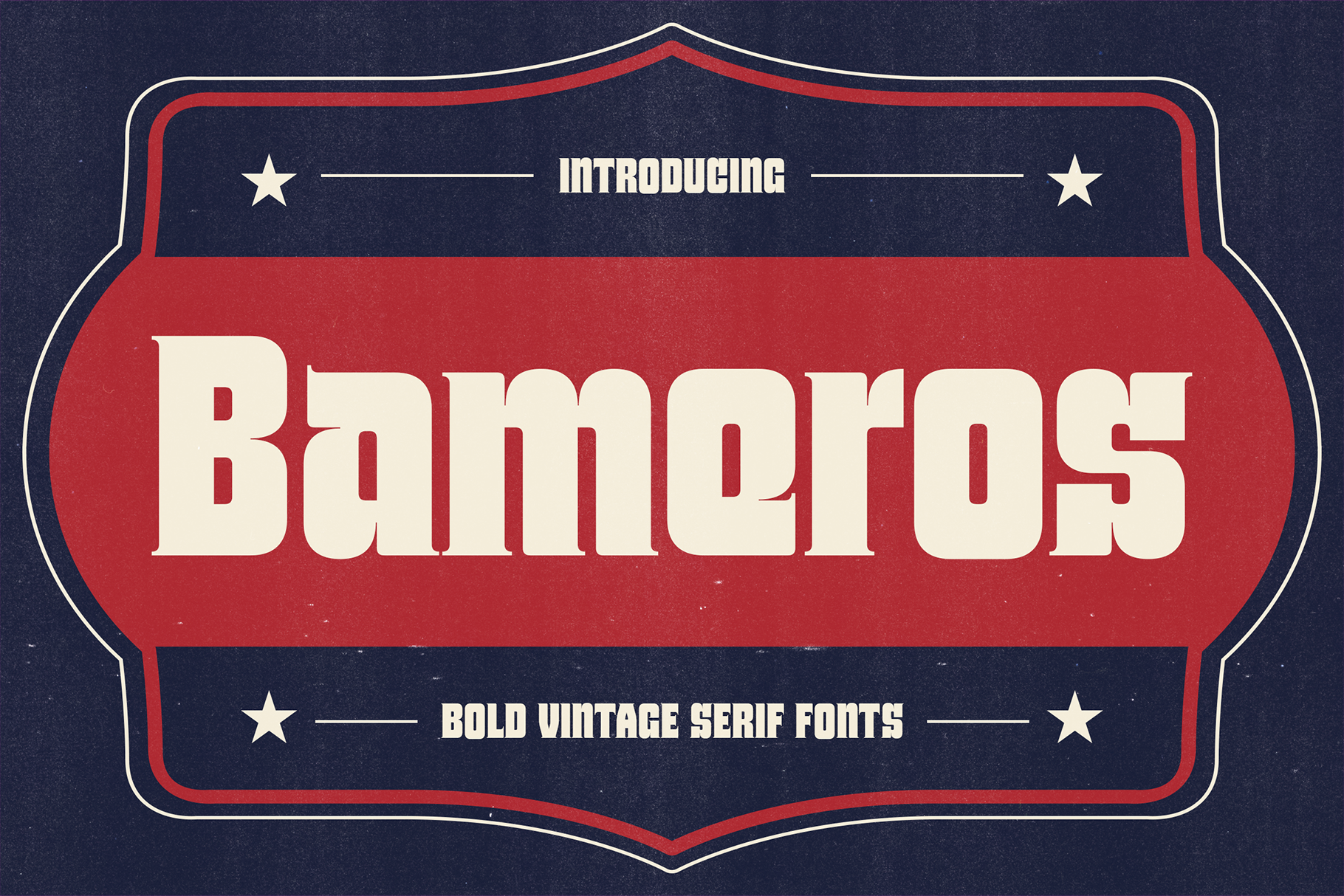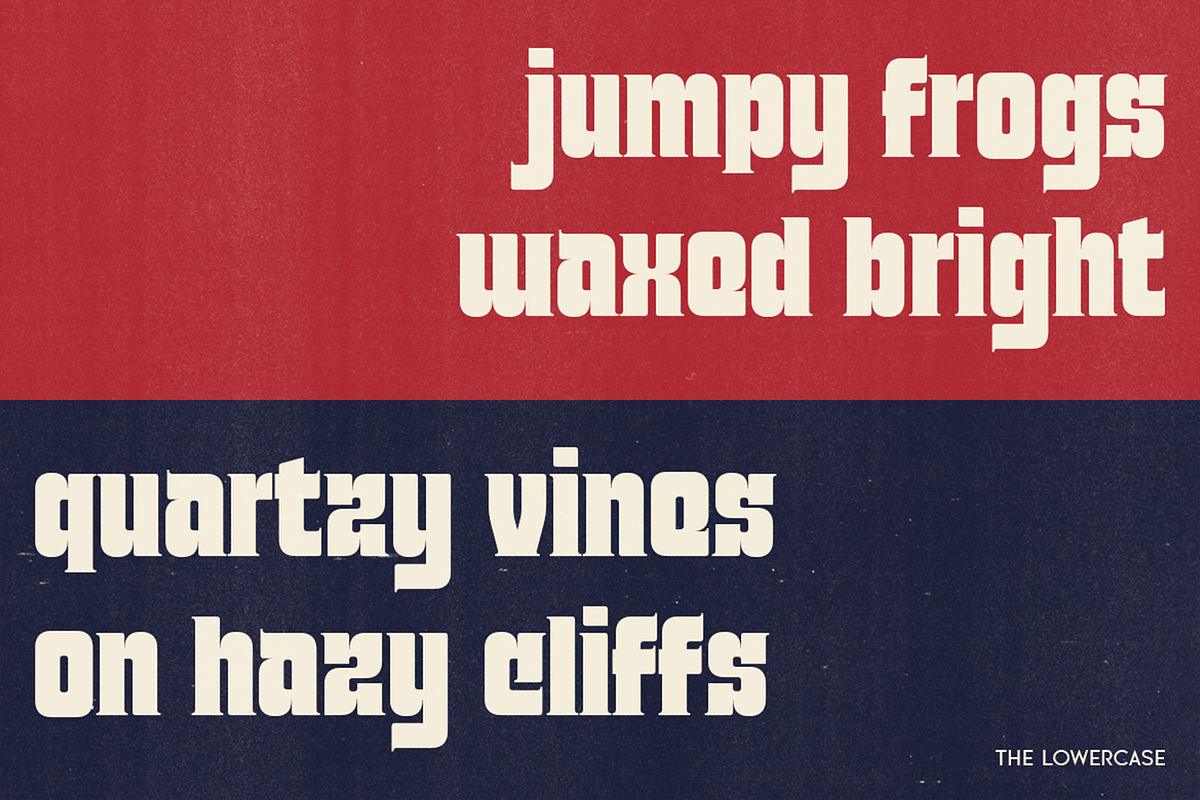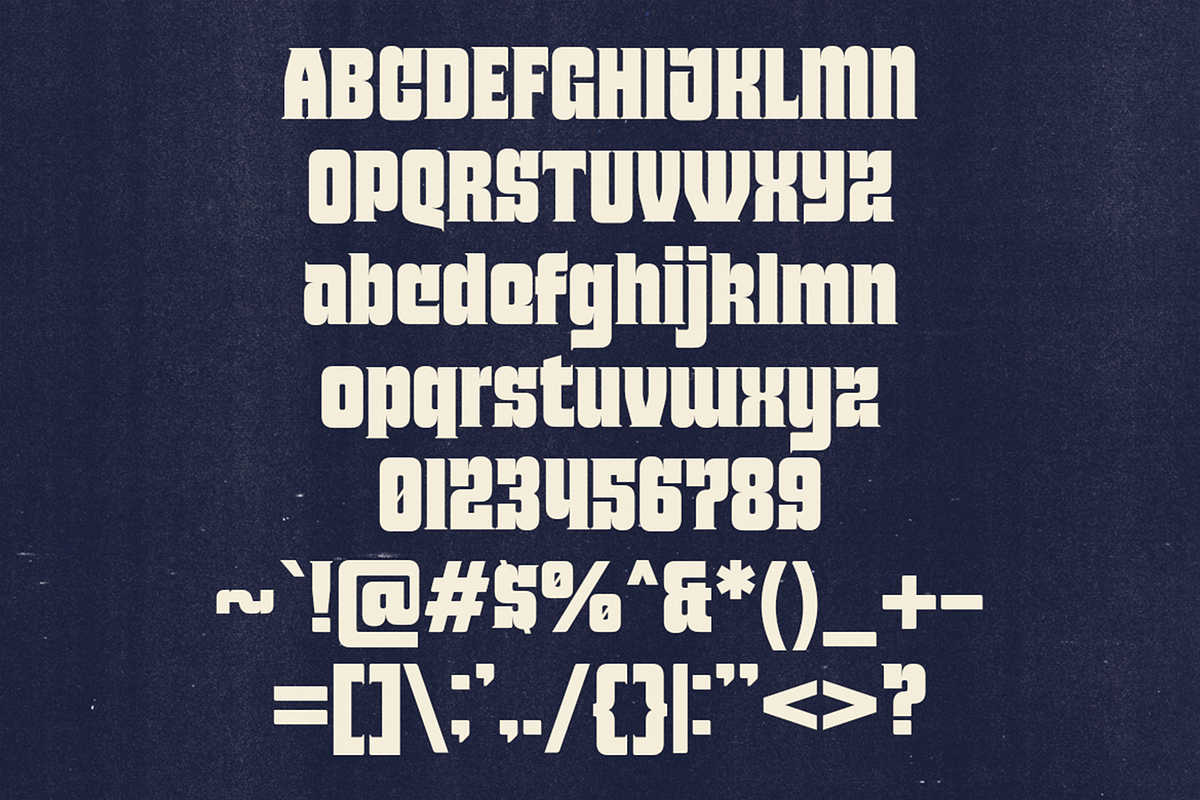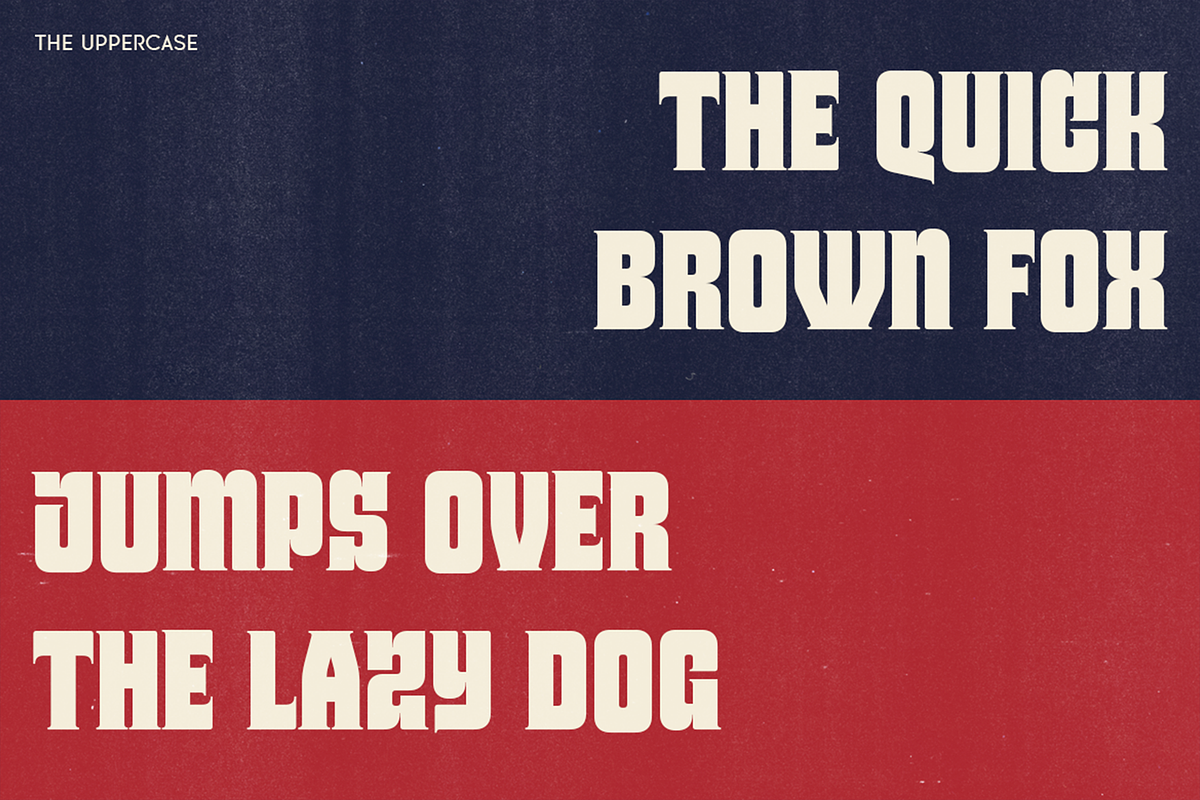
Bameros - Bold Vintage Serif Fonts
Bameros: Where Bold Tradition Meets Timeless Branding
Introducing Bameros, a bold serif font inspired by the elegance of vintage beer labels, iconic signs, and logos from the past. With its strong, distinctive shapes and remarkable character, Bameros is more than just a font—it’s a statement.
Designed to stand out, Bameros brings a touch of history to modern branding. Whether you’re creating a logo, packaging, or signage, this unique typeface adds a classic yet unforgettable look to your design. Elevate your brand with the timeless charm of Bameros.
Make your mark. Stand out with Bameros.